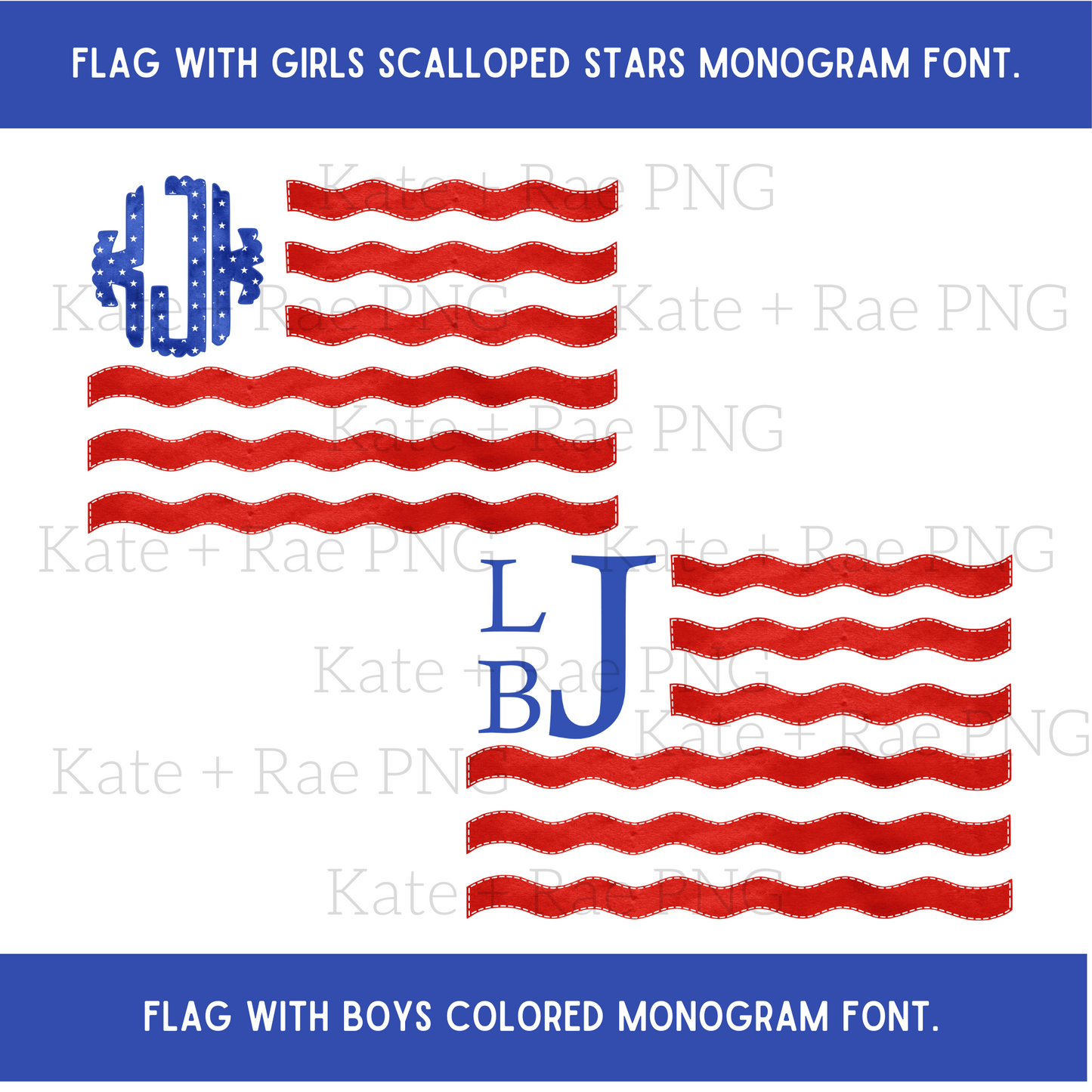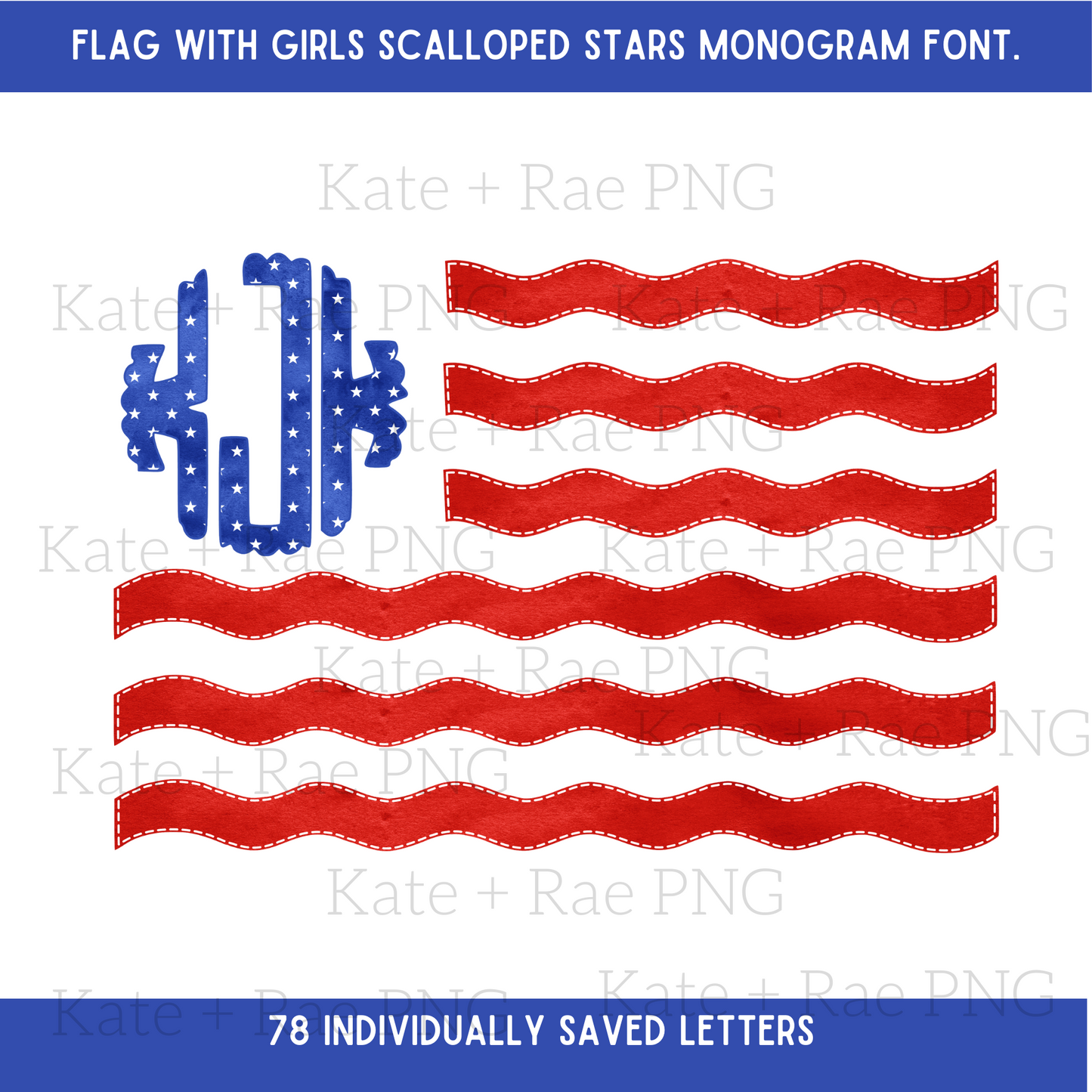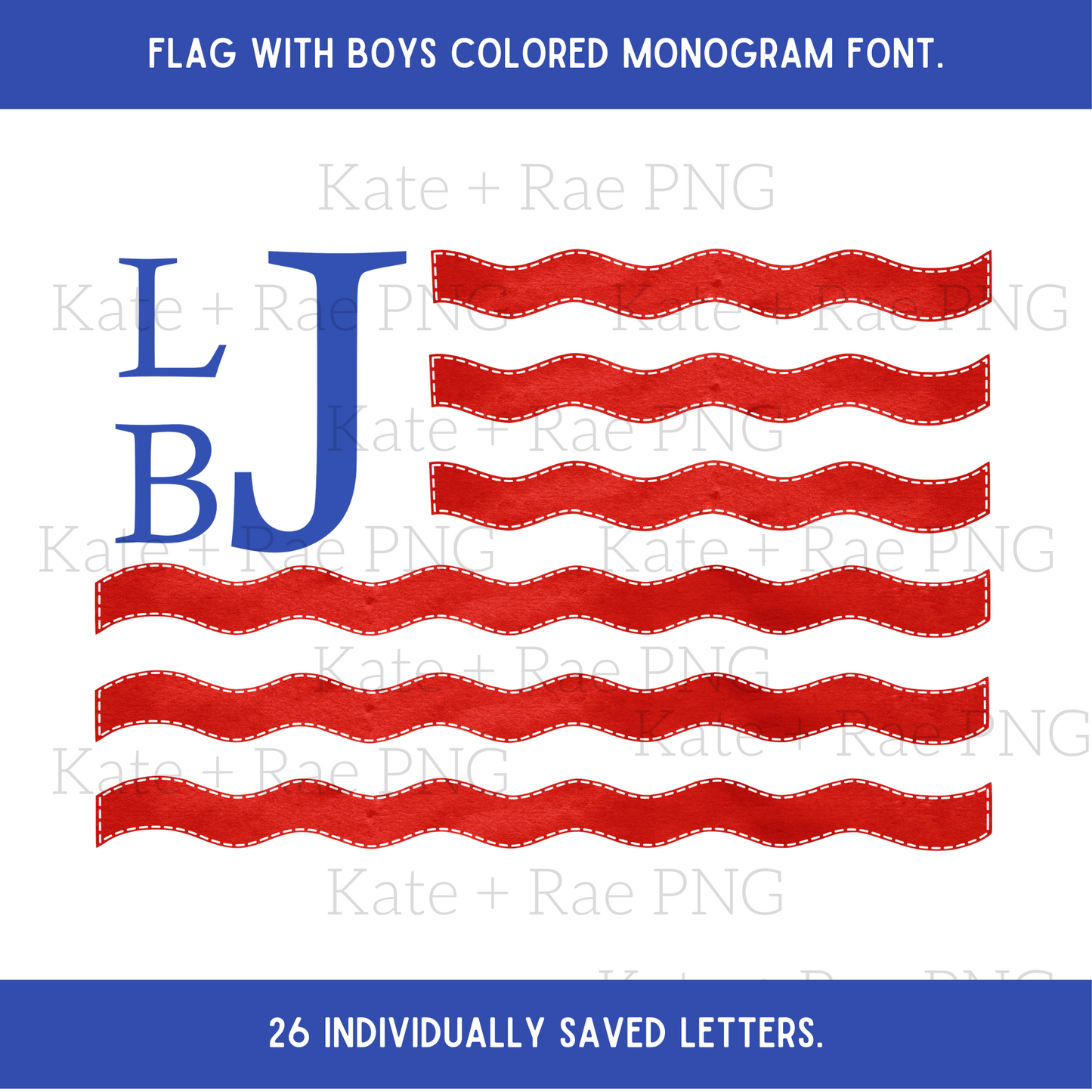
American flag faux applique with girls and boys monogram font.
Girls and boys American flag png with monograms. This designs includes the flag and BOTH monogram sets.
Girls scalloped stars monogram includes 78 letters individually saved into left, right and center letters.
Boys blue standard font include 26 individually saved letter that YOU will resize to stack and fit to your liking.